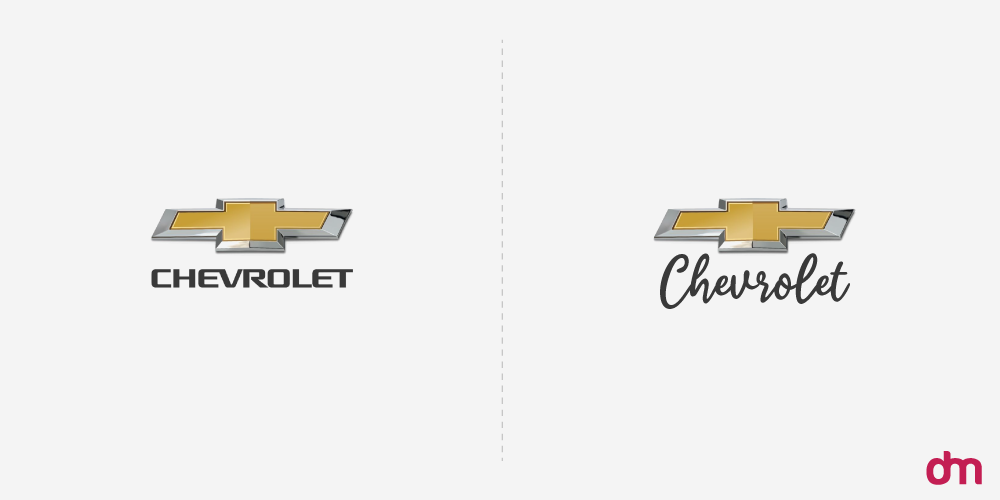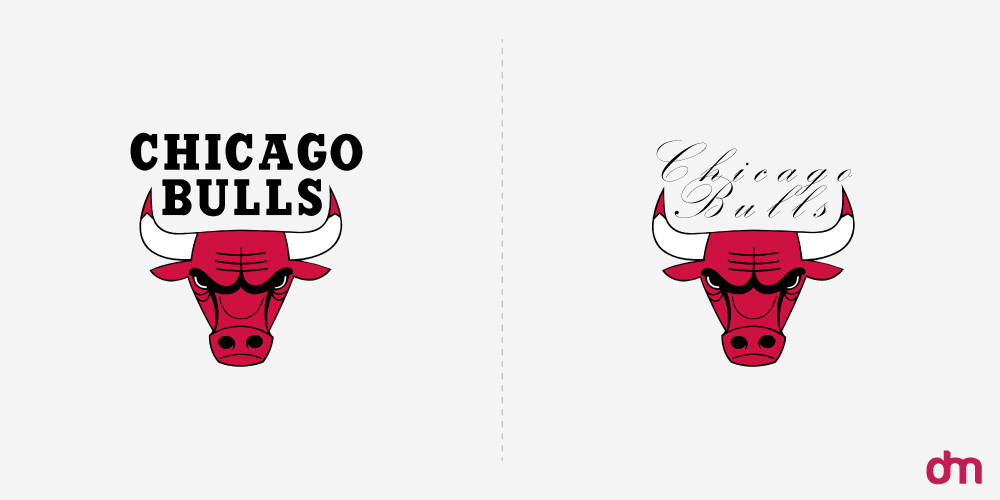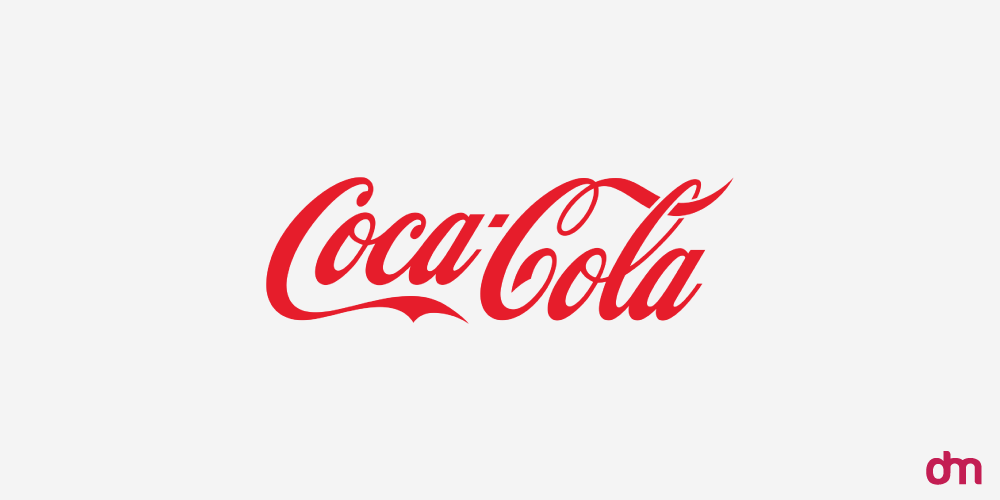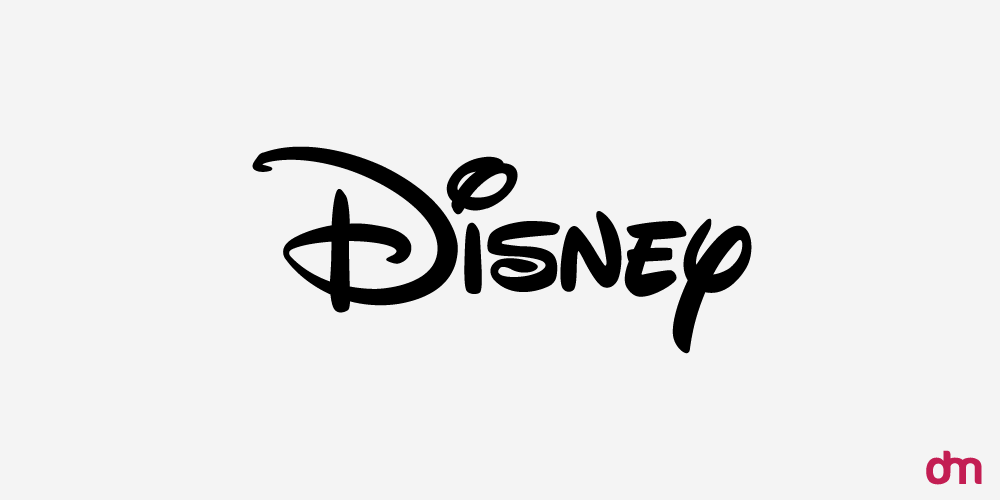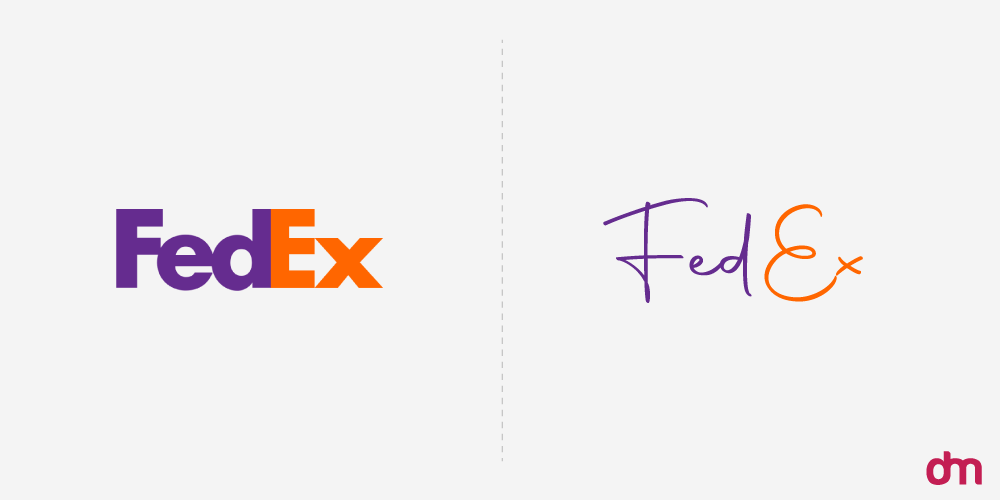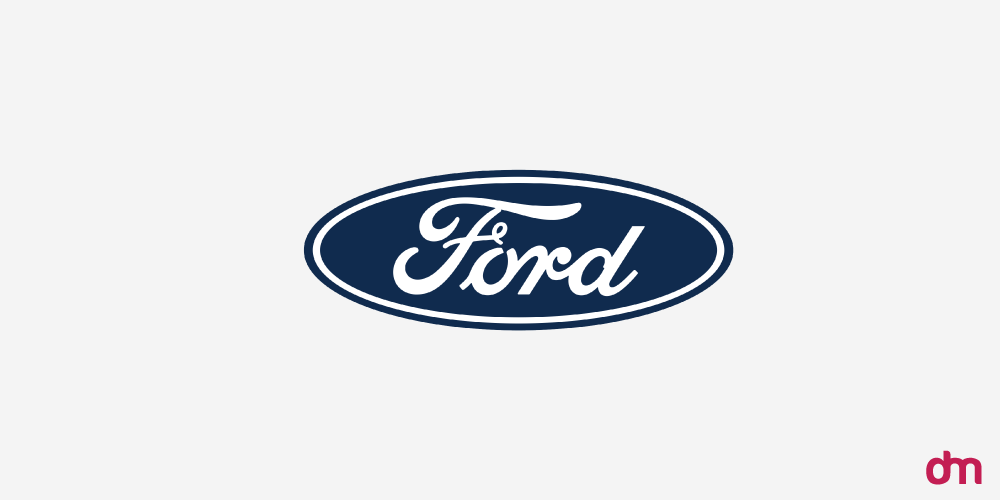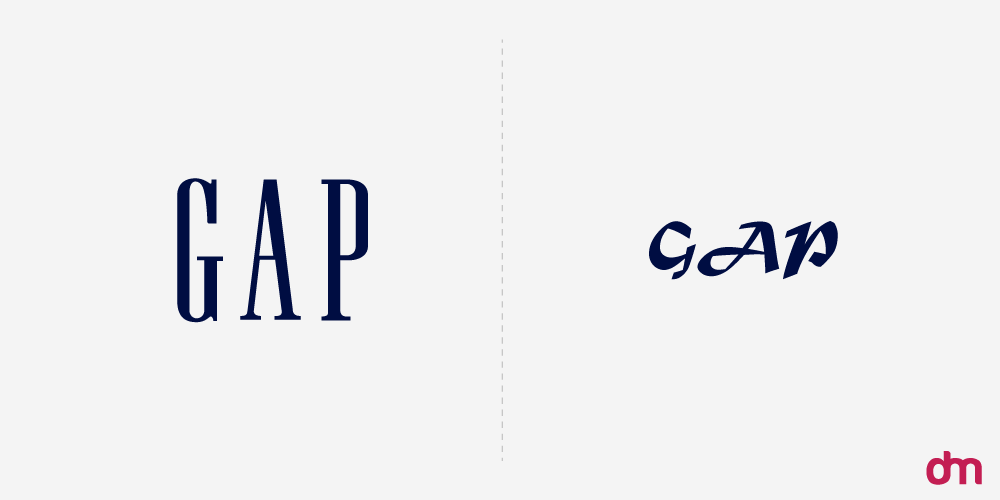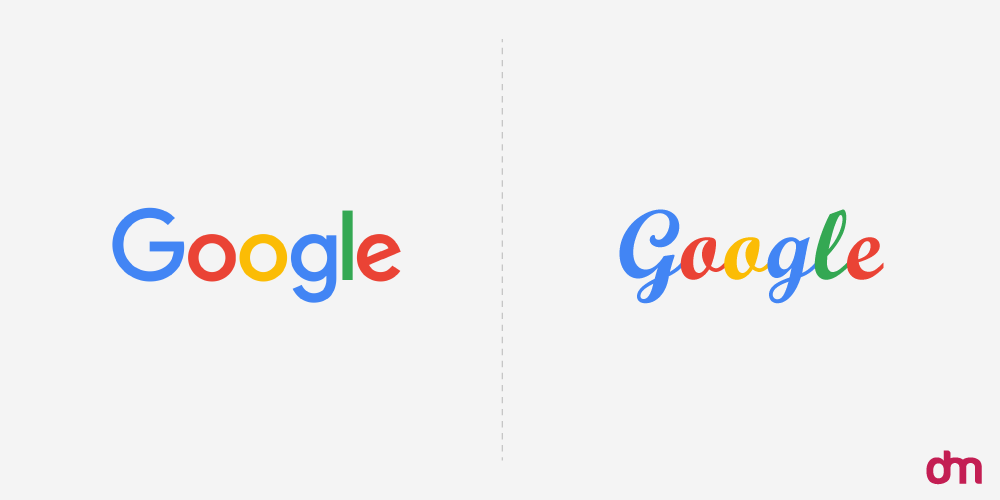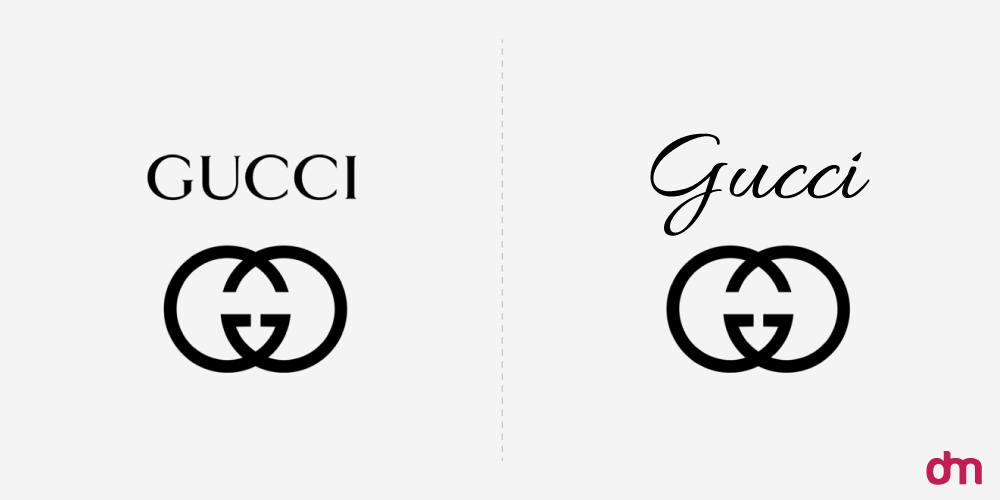
Cursive Fonts in Logo Design
Branding is a whole new world in itself and a logo is a small part of it. However, it is more than just a visual—it’s a statement. Although there are many different types of logos, wordmark logos help reinforce brand identity, that is, if you choose the right font style – one of which is cursive.
Cursive fonts, being elegant and flowing, have been employed to bring a hint of tradition, authenticity, and sophistication to brand identities for decades.
From Coca-Cola’s now-familiar script to the suave signature of luxury brands like Louis Vuitton and Gucci, there are many examples to look at. Although much has changed over the 100 years of logo evolution, cursive logo fonts have never gone out of style and still greatly affect the way companies brand themselves. These fluid, handwriting-like fonts have a significant place in modern-day branding and are as formidable in today’s digital age as they used to be.
Learn the relevance of cursive fonts for logo design and learn how companies use this typeface. Also, see how some of the most ubiquitous non-cursive trademarks can potentially be re-fashioned into script iterations in this post.
What Are Cursive Fonts?
Scripts or cursive fonts are fonts that imitate the flowing strokes of handwriting. They may be as informal as handwritten fonts or as formal as beautiful calligraphy.
Types of Cursive Fonts:
• Formal Cursive – Highly decorative with fine details (e.g., Edwardian Script, Bickham Script)
• Casual Cursive – More informal and relaxed, simulating natural handwriting (e.g., Pacifico, Dancing Script)
• Modern Script – Elegant, smooth, and modern, typically applied to up-to-date branding (Playlist Script, Allura)
Cursive fonts give a friendly feel, which makes them best for companies seeking to portray warmth, imagination, or extravagance.
Where Can You Use Cursive Fonts?
Cursive fonts are not confined to logos alone, cursive is everywhere, it has found its way into all kinds of branding and design aspects, such as:
• Luxury Branding: In order to convey the feeling of being high-end, luxury jewelry, cosmetics, and fashion companies often use cursive in their branding.
• Food & Beverage Branding: Cursive letters are used to invoke unspoken feelings of nostalgia, heritage, or home-made in this market.
• Wedding & Event Branding: Script fonts prevail on invitations, signs, and event branding.
• Beauty & Lifestyle Branding: Cursive is utilized by skincare, fragrance, and wellness brands to add personality to their brand
Why Cursive Font Matters in Logo Design?
A logo isn’t merely a logo, it signifies a brand, and a cursive logo makes it memorable. It entails a brand’s history and values and is one of the best logo design trends in 2025. Some reasons why brands use cursive fonts in logo design are:
1. Evokes Feeling and Originality
Cursive fonts feel more personal and homemade, which allows brands to gain trust and originality. This explains why most artisan and boutique businesses use a cursive logo maker for unique crafting.
2. Enhances Brand Recognition
There are many different identifiable logos that are in cursive. Take Coca-Cola’s iconic red script, for example, it’s easily recognizable.
3. Portrays Elegance and Luxury
Many luxury brands such as Louis Vuitton and Gucci use cursive font logos to convey feelings of sophistication, elegance, and royalty,
4. Impart Classic and Timeless Excellence
Many companies such as Ford and The New York Times have kept their logo designs unaltered over decades purely due to their script font’s timeless appeal.
5. Offers Versatility
Cursive fonts are fun, sophisticated, and retro in nature, among many other things. Thus, they can be used across different industries.
Brands That Employ Cursive Fonts in Their Logos
Numerous iconic brands have used the elegance of cursive fonts to design enduring brand identities. Below are some prominent cursive logo examples:
1. Coca-Cola
Coca-Cola Logo
Coca-Cola Logo – Cursive Font
Perhaps the most iconic cursive logo ever, Coca-Cola’s red script font has been its identity for more than a century.
2. Ford
Ford Logo
Ford Logo – Cursive Font
The automotive giant’s script logo represents legacy, trust, endurance, and strength.
3. Louis Vuitton
Louis Vuitton Logo
Louis Vuitton Logo – Cursive Font
The fashion brand’s monogram and script font hollers luxury.